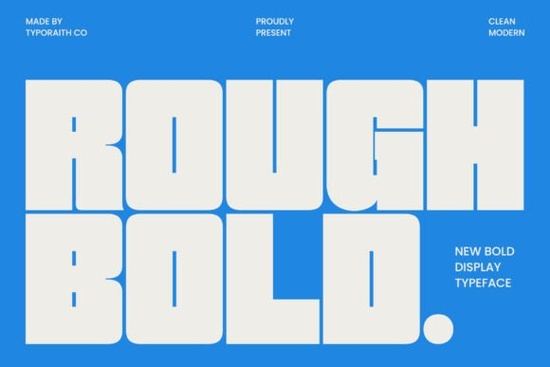
If you're working on a poster, logo, or packaging design that needs to command attention without feeling cluttered, Rough Bold Font might be exactly what your project is missing. This modern display typeface blends chunky geometric letterforms with softly rounded edges, giving it a bold presence that still feels clean and contemporary. Whether you’re a small business owner creating branded merch, a print-on-demand seller designing t-shirt graphics, or a hobbyist crafting social media visuals, Rough Bold offers a strong yet versatile foundation for standout typography.
What makes Rough Bold work well for real-world projects?
Unlike overly decorative or script fonts that can get lost at small sizes or in busy layouts, Rough Bold maintains legibility while delivering visual impact. Its thick strokes and open counters make it readable even when scaled down slightly perfect for product labels or app icons. At larger sizes, like billboards or storefront signage, it holds its own with confidence.
Because it leans into minimalism rather than ornamentation, Rough Bold pairs easily with other typefaces. Try combining it with a neutral sans-serif for body text or a delicate serif for contrast. You’ll find it especially useful in industries like streetwear, wellness branding, tech startups, or food packaging anywhere you want to signal strength, clarity, and modernity.
How does it compare to other bold display fonts?
Not all bold fonts are created equal. Some feel aggressive; others come across as dated. Rough Bold strikes a balance it’s assertive but not harsh, trendy but not fleeting. If you’ve explored options like Rotzky, which leans into retro-futurism, or the playful energy of Banana Bogart, you’ll notice Rough Bold takes a more restrained approach. It doesn’t rely on exaggerated curves or quirky terminals; instead, it uses consistent weight and subtle rounding to create warmth within structure.
Where should you use (or avoid) this font?
Great uses:
- Headlines and hero sections on websites
- Product packaging for modern brands
- Social media banners and ad creatives
- T-shirt and tote bag designs (especially single-word slogans)
- Event posters where clarity and impact matter
Less ideal for:
- Long paragraphs or body text
- Traditional or heritage-focused branding (e.g., law firms, antique shops)
- Projects requiring handwritten or organic vibes
Remember: display fonts like Rough Bold are meant to shine in short bursts. Use them intentionally usually one or two words to maximize their effect without overwhelming your layout.
Is Rough Bold beginner-friendly?
If you’re new to using display fonts, start by testing Rough Bold in a mockup: place it over a photo background or solid color block, adjust tracking slightly if letters feel too tight, and avoid stretching or distorting the glyphs. Even small tweaks can enhance readability and aesthetic harmony.
If your creative work benefits from clean, confident typography that doesn’t shout but still stands tall, Rough Bold is worth adding to your toolkit.